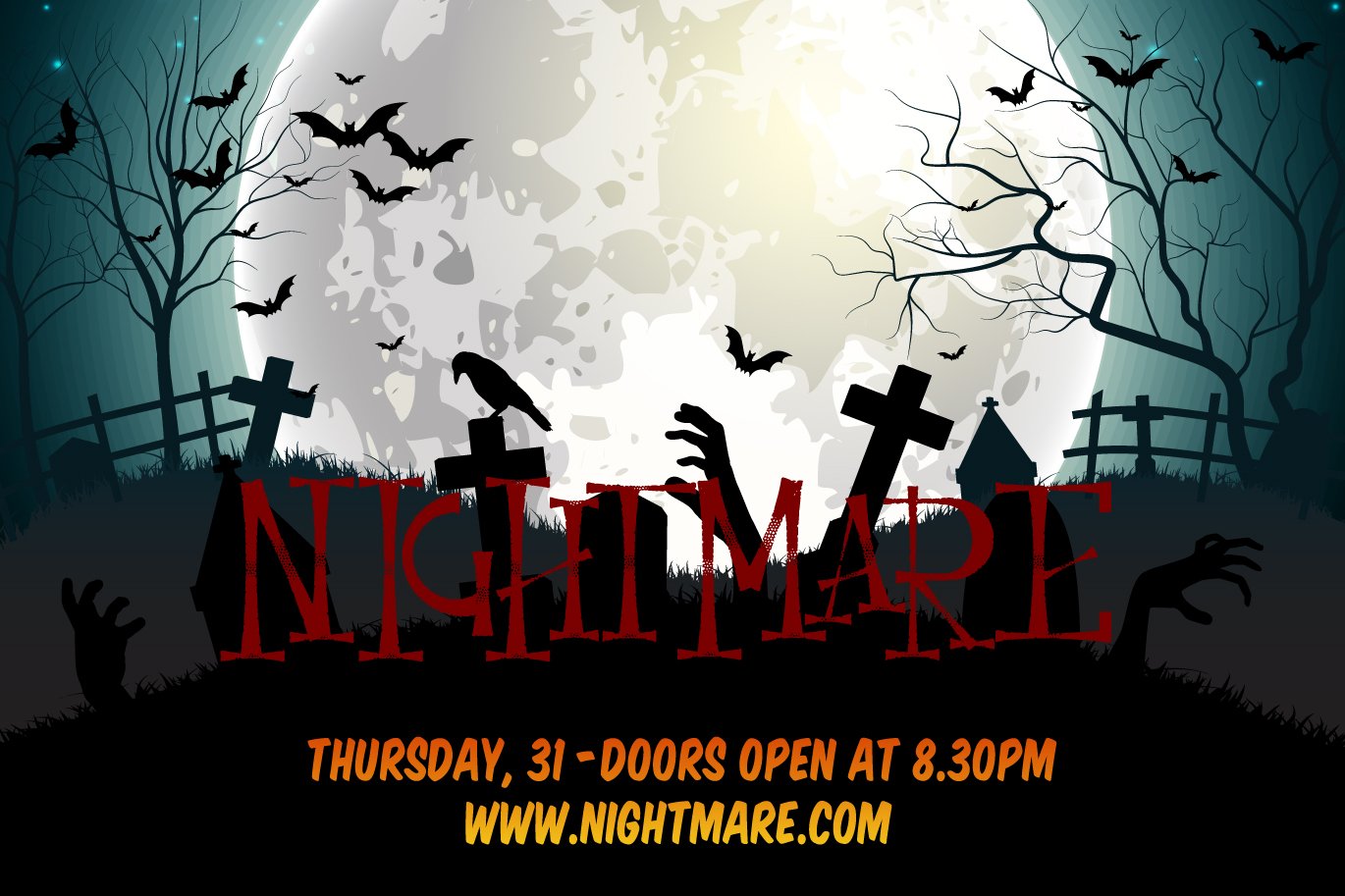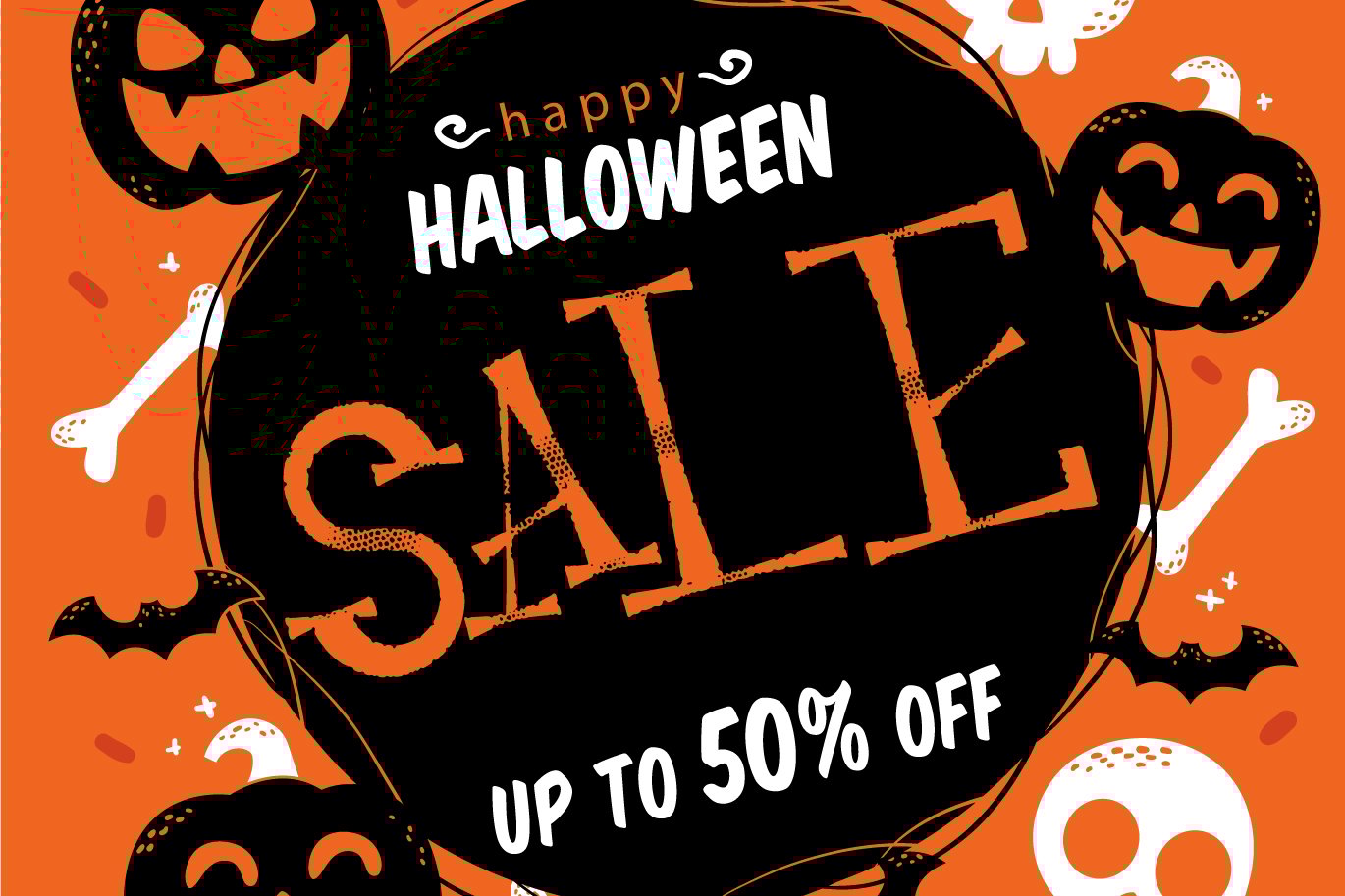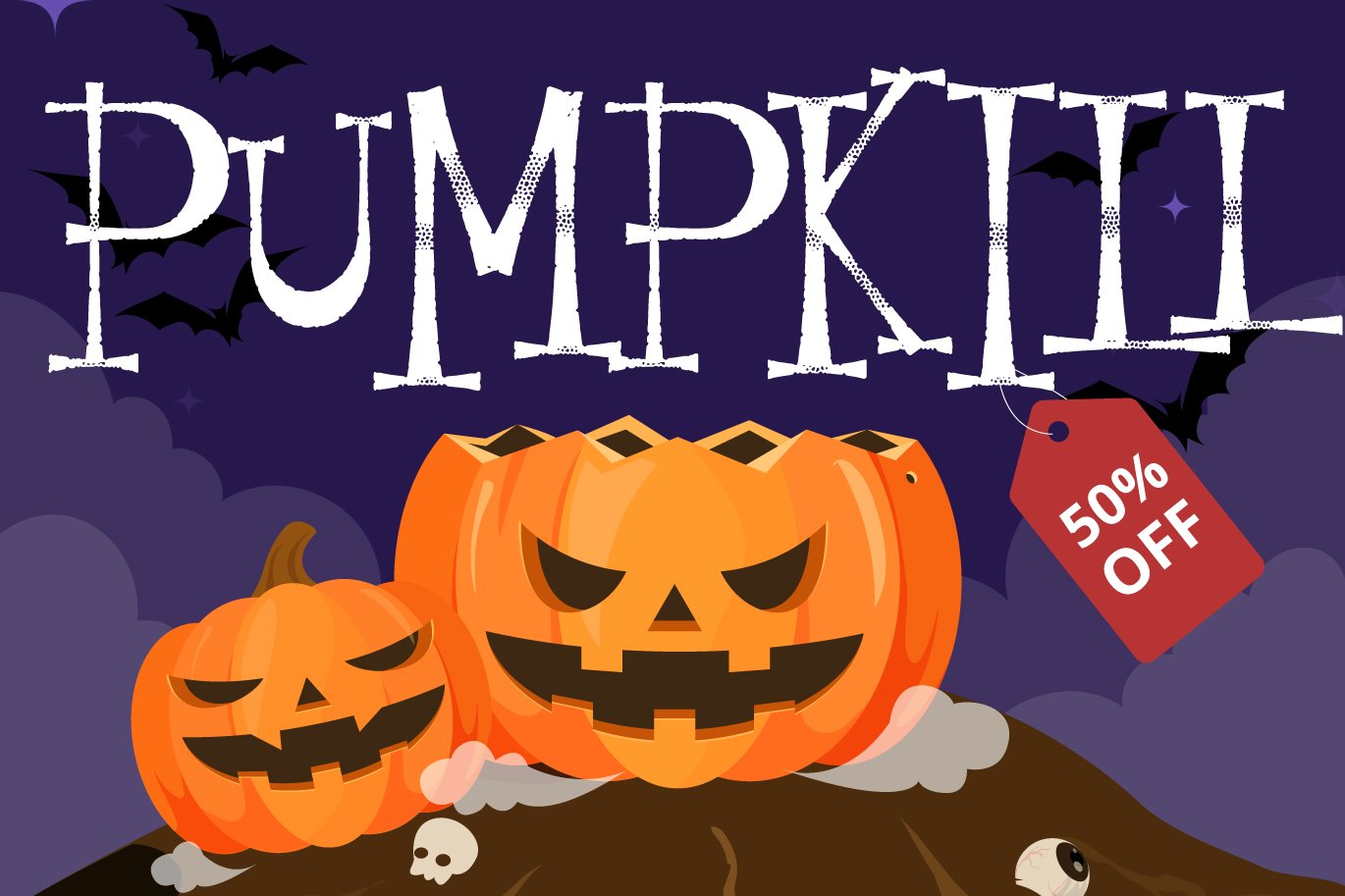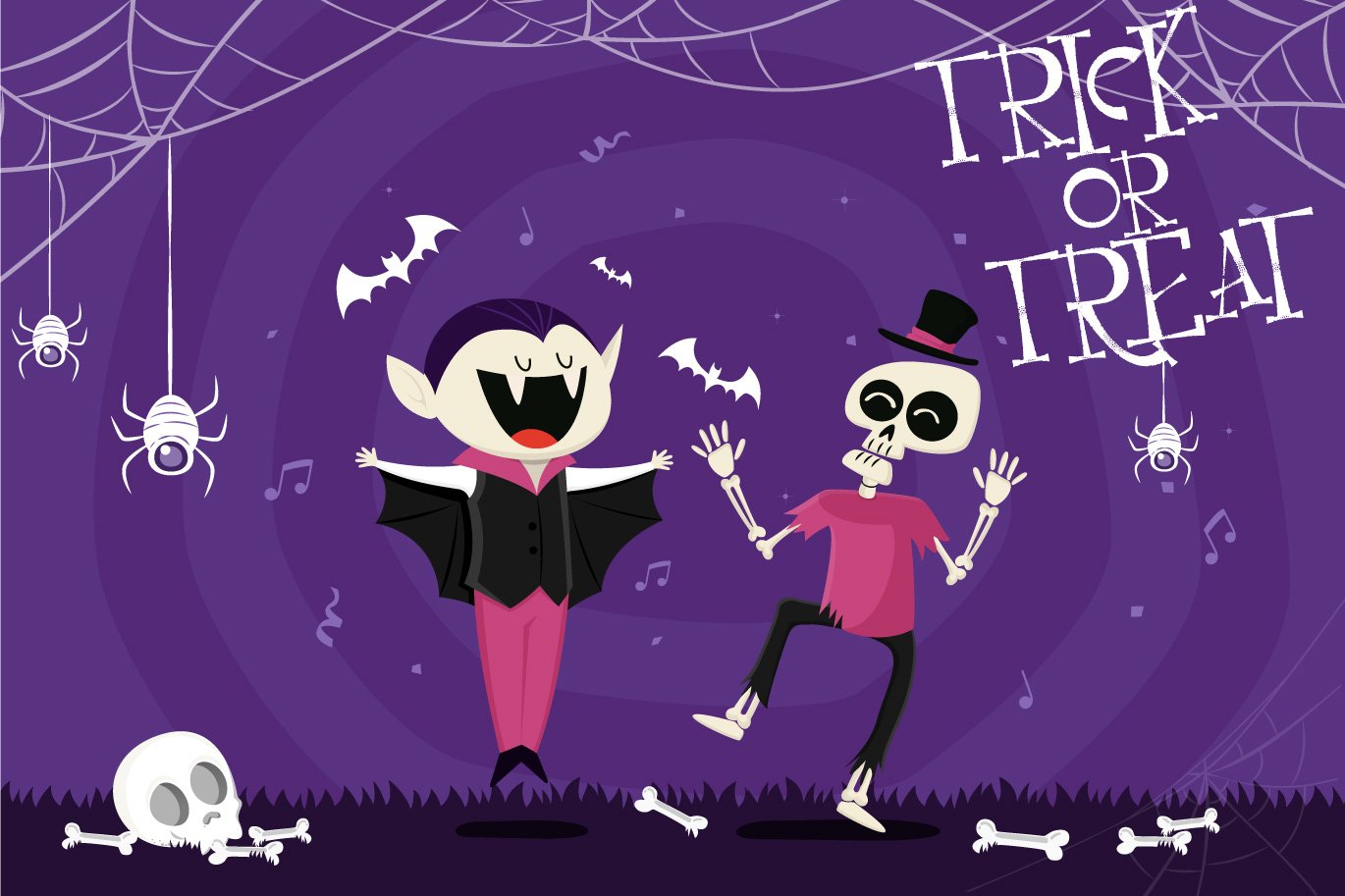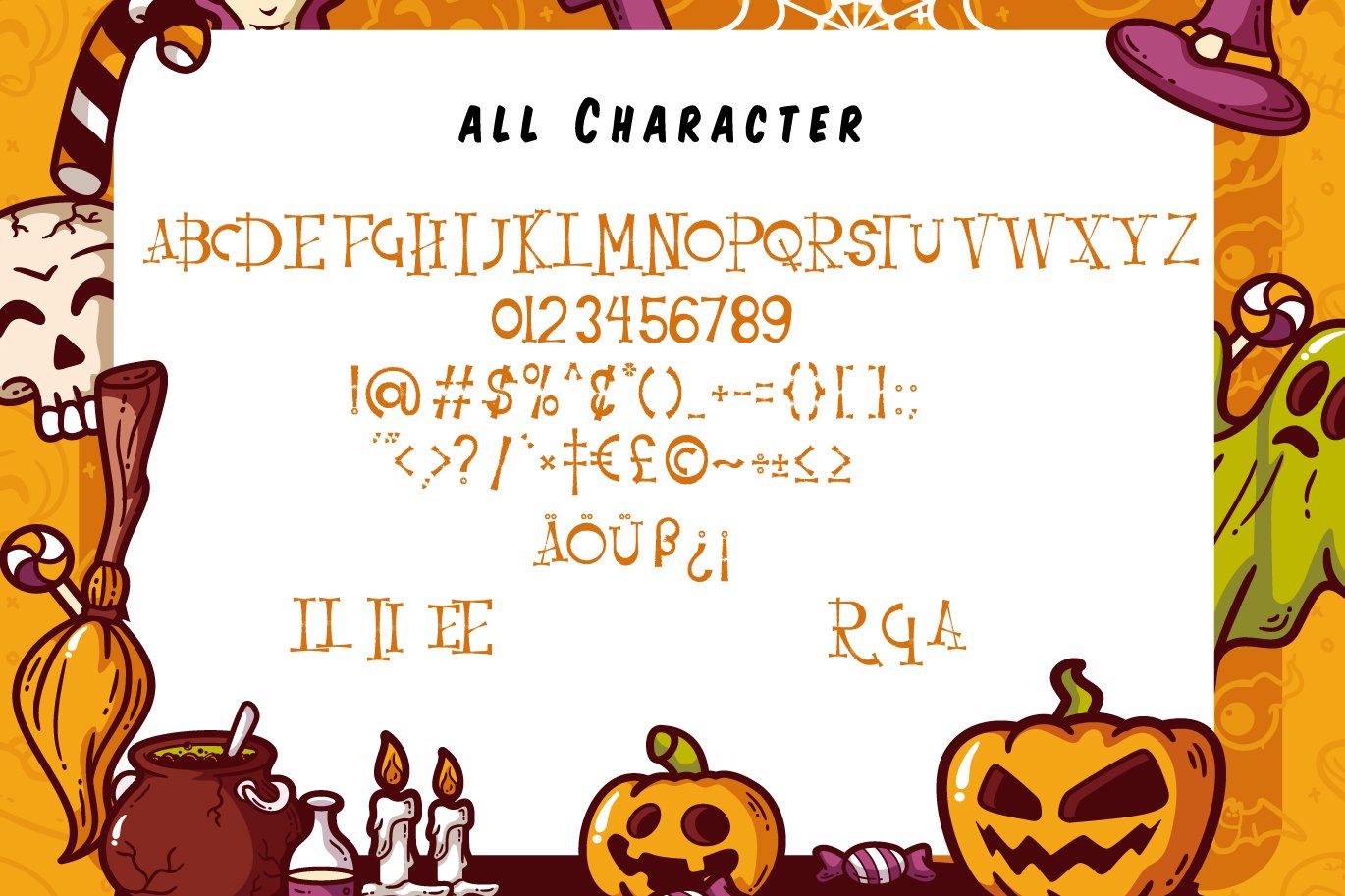
Resquro Halloween | Decorative Font
Resquro Halloween | Decorative Font with a calligraphy style, So beautiful on invitation like greeting cards, branding materials, business cards, quotes, posters, and more!